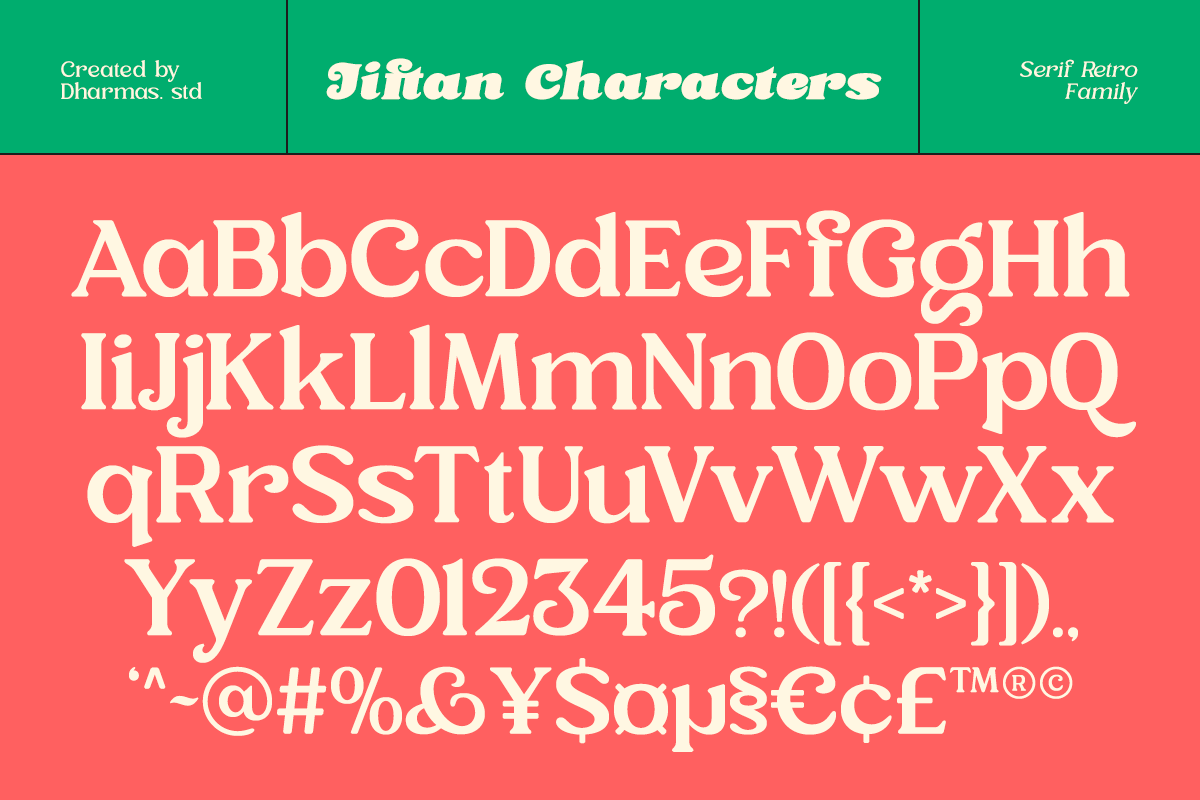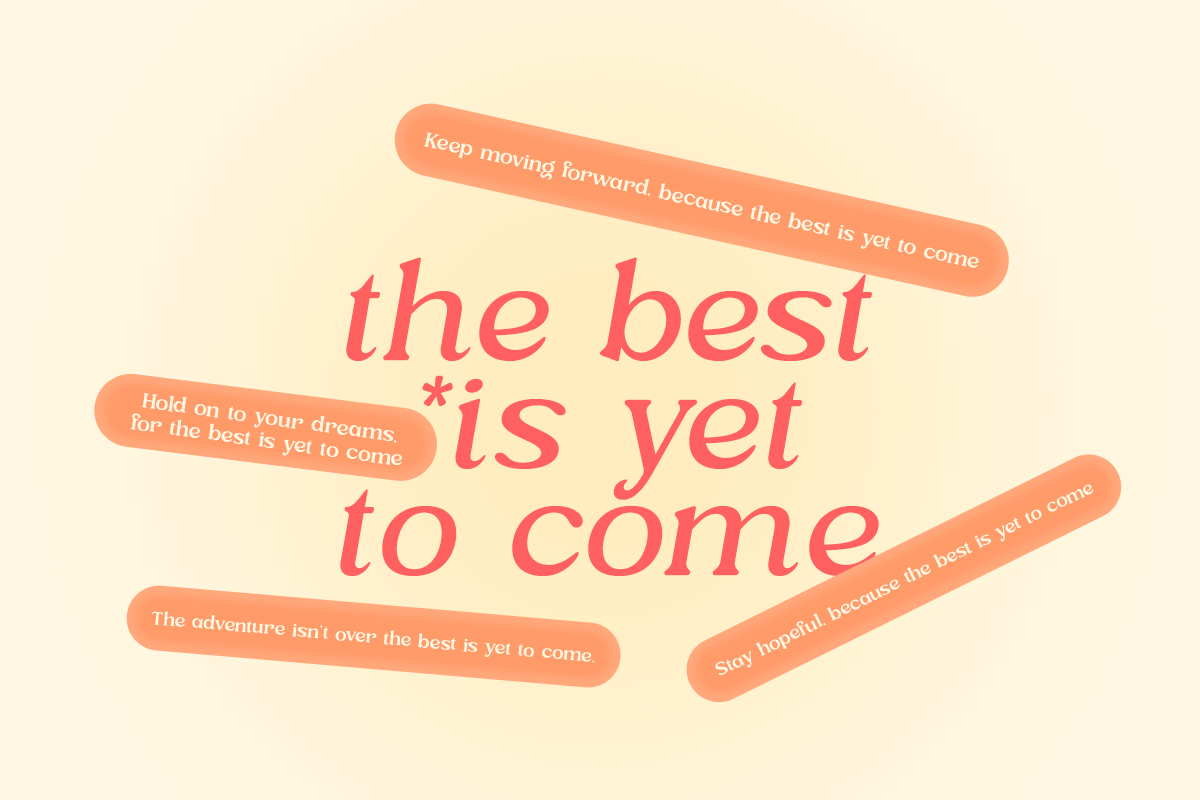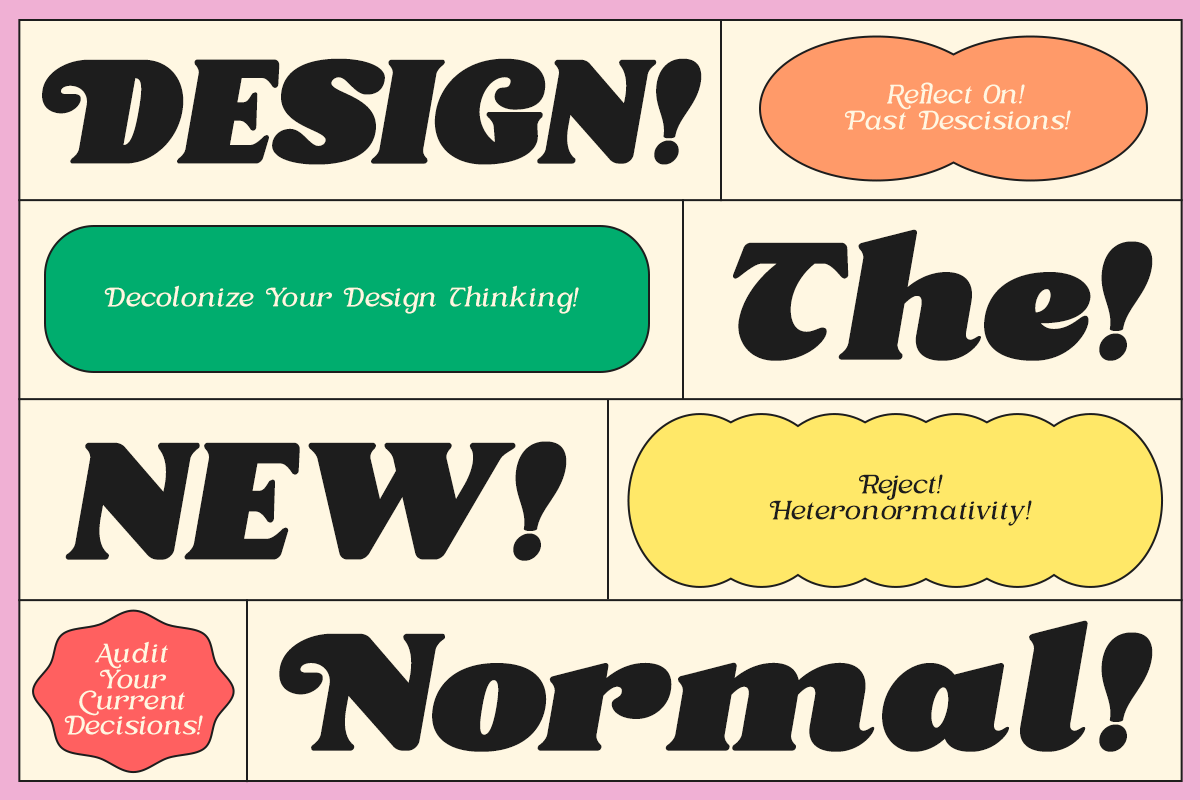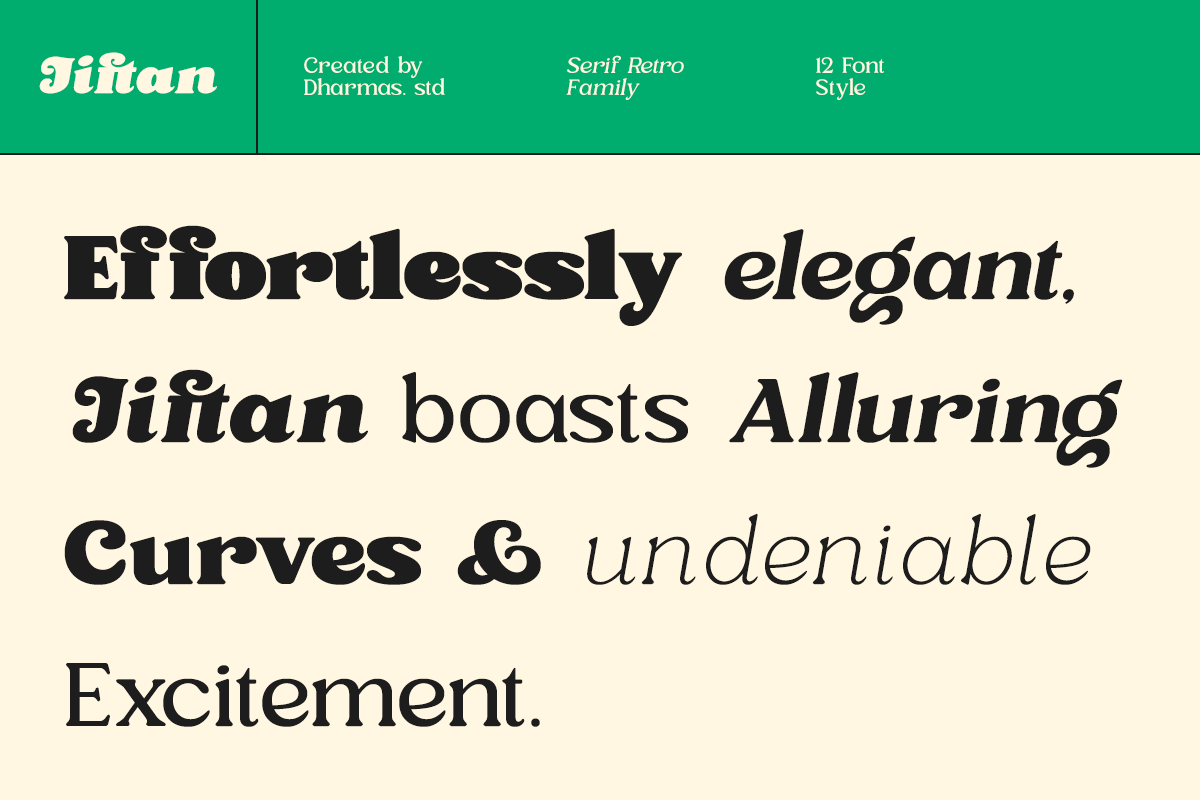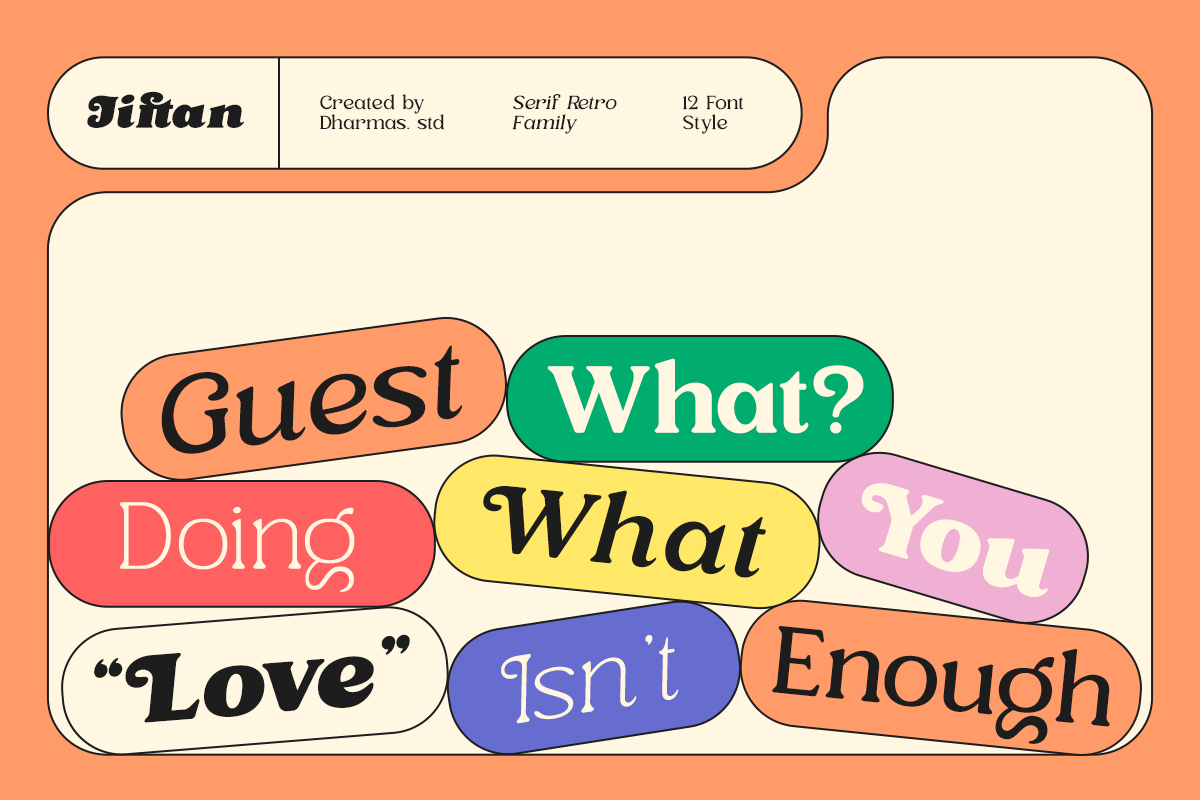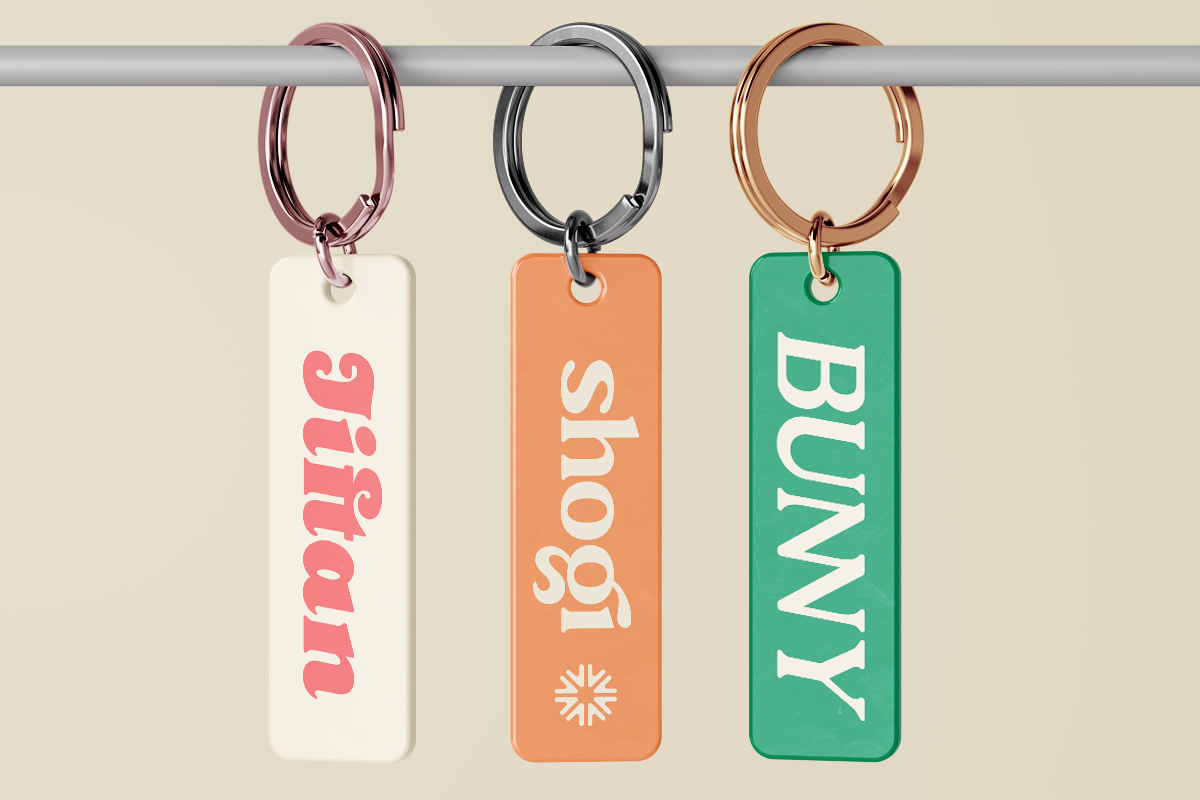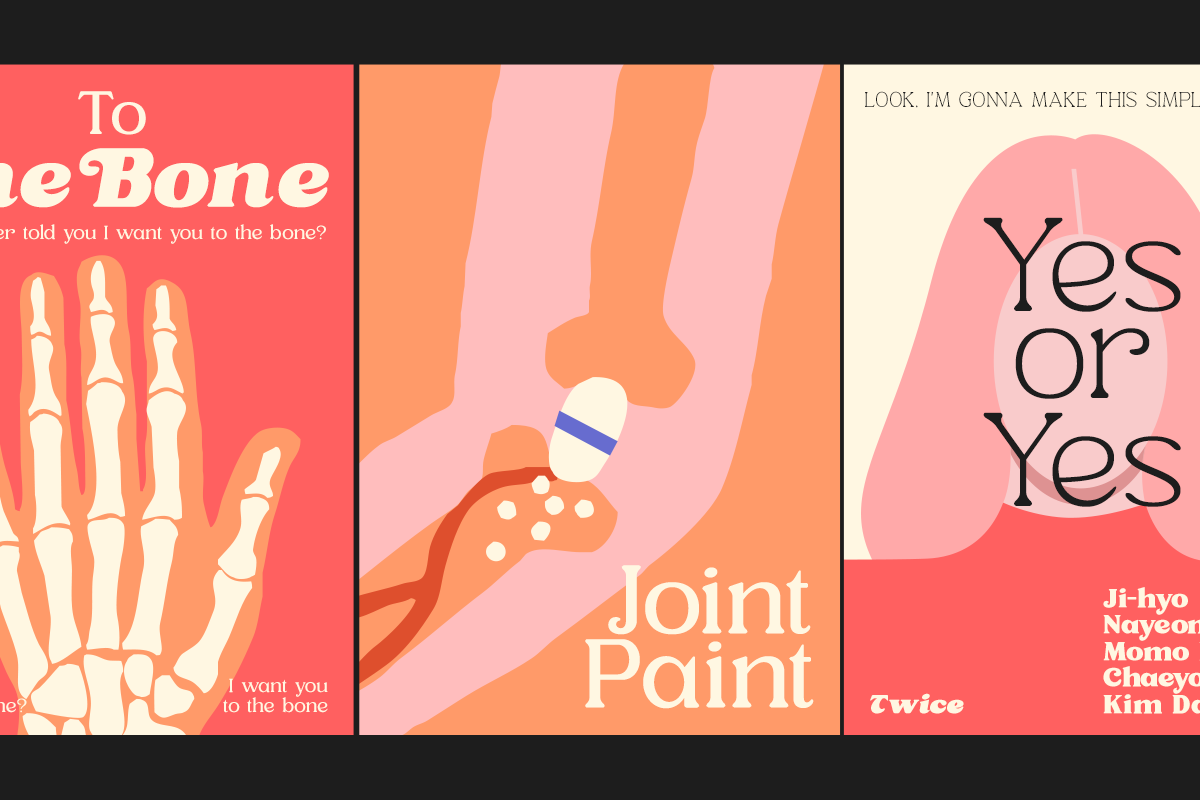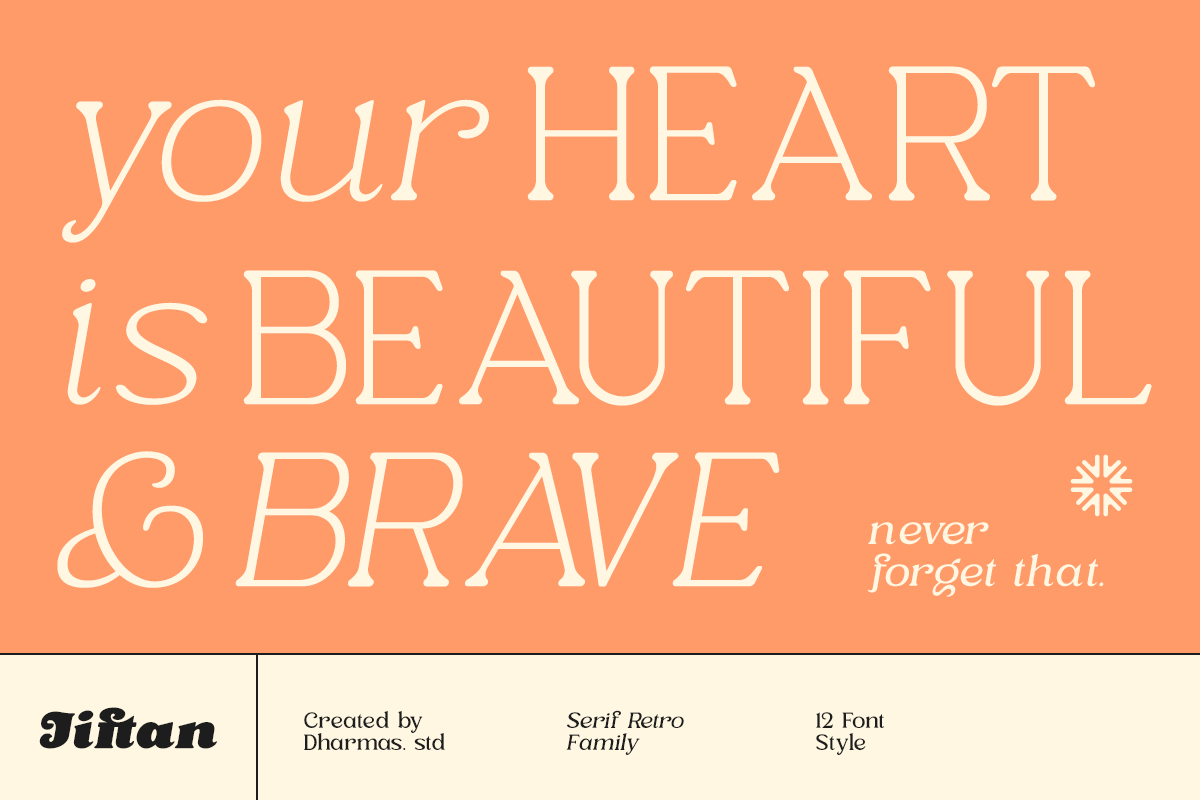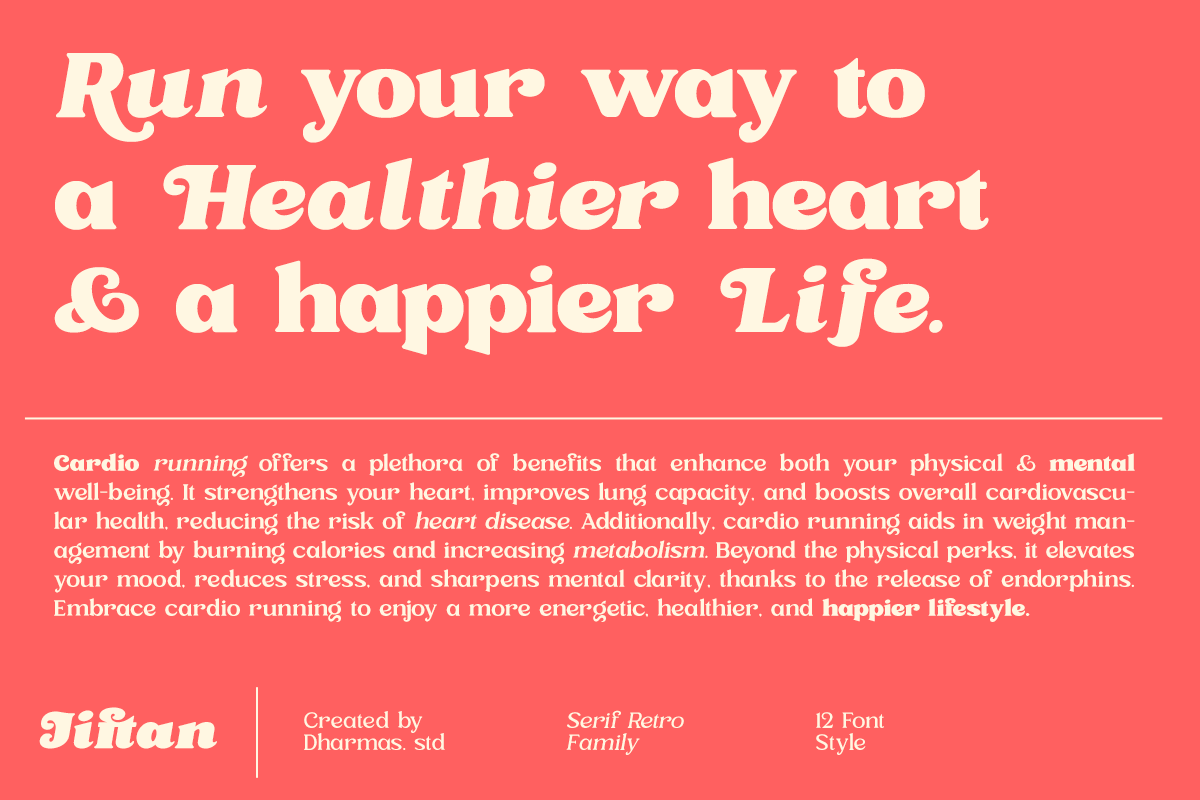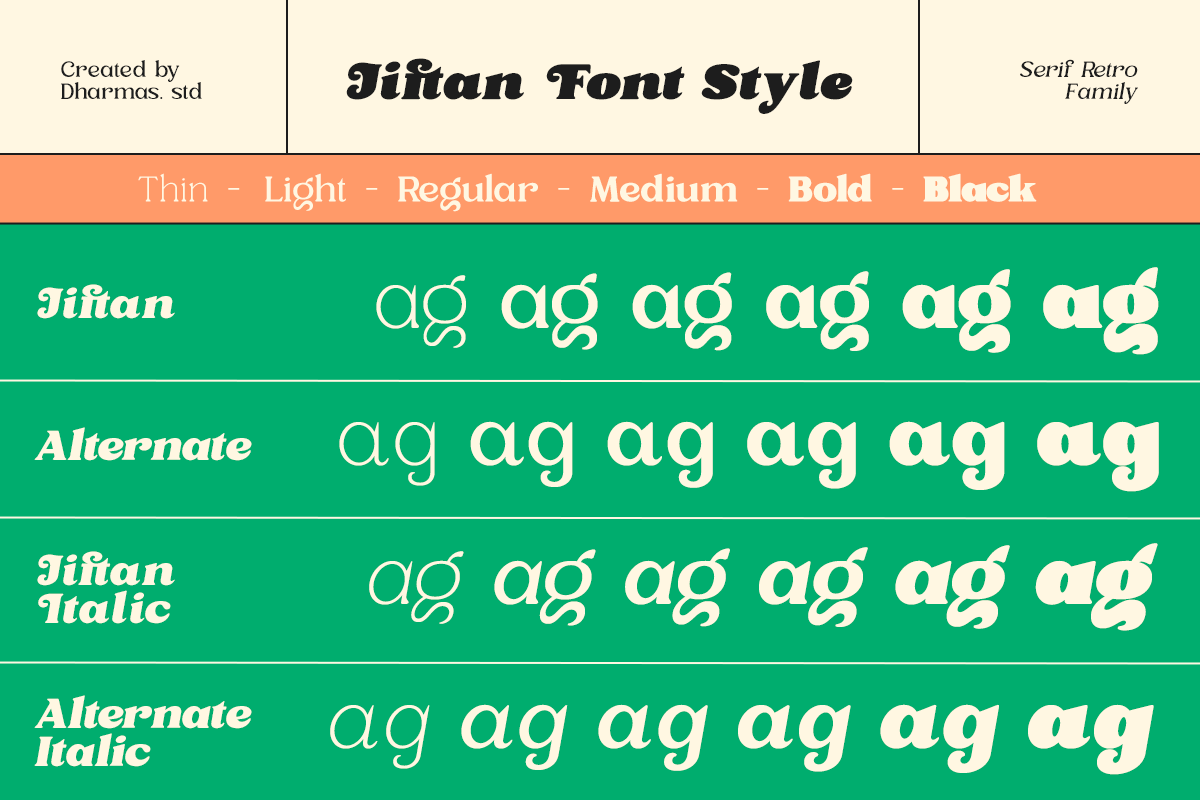
Jiftan - 12 Retro Family
Introducing Jiftan – Inspired by more than a hundred years of typographic evolution, Jiftan is a soft and rounded old-style serif typeface that echoes the charm of the sixties era. Jiftan offers a clean and versatile letterform that is perfect not only for display but also for reading purposes.
Jiftan comes with 6 family variations: Thin, Light, Regular, Medium, Bold, and Black. Each of these styles also includes an italic version, giving you a total of 12 fonts to work with.
Jiftan is equipped with over 40 unique ligatures and alternates, making it an excellent choice for creating stunning logos, quotes, posts, blog posts, branding projects, magazine imagery, wedding invitations, and much more.
- 6 Weights: Thin, Light, Regular, Medium, Bold and Black
- 40+ Unique Alternates and Ligatures
- Letters, numbers, symbols, and punctuation